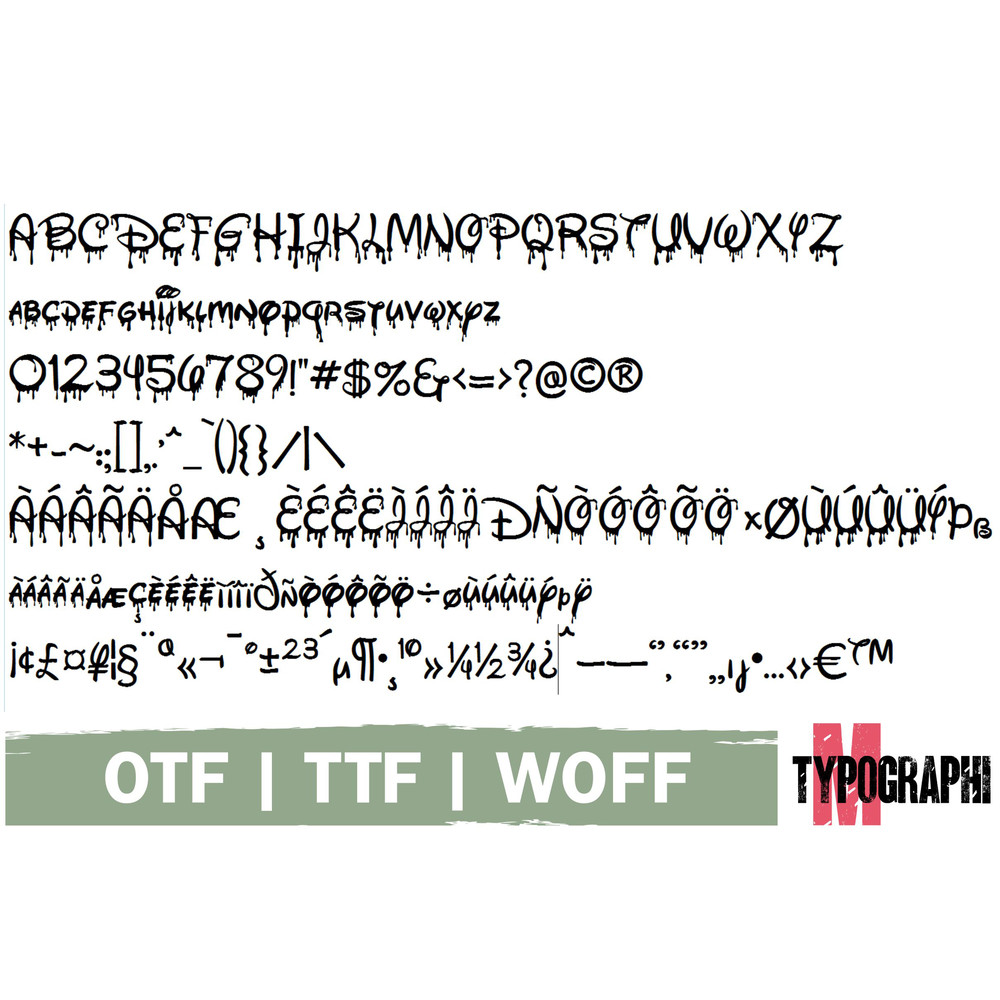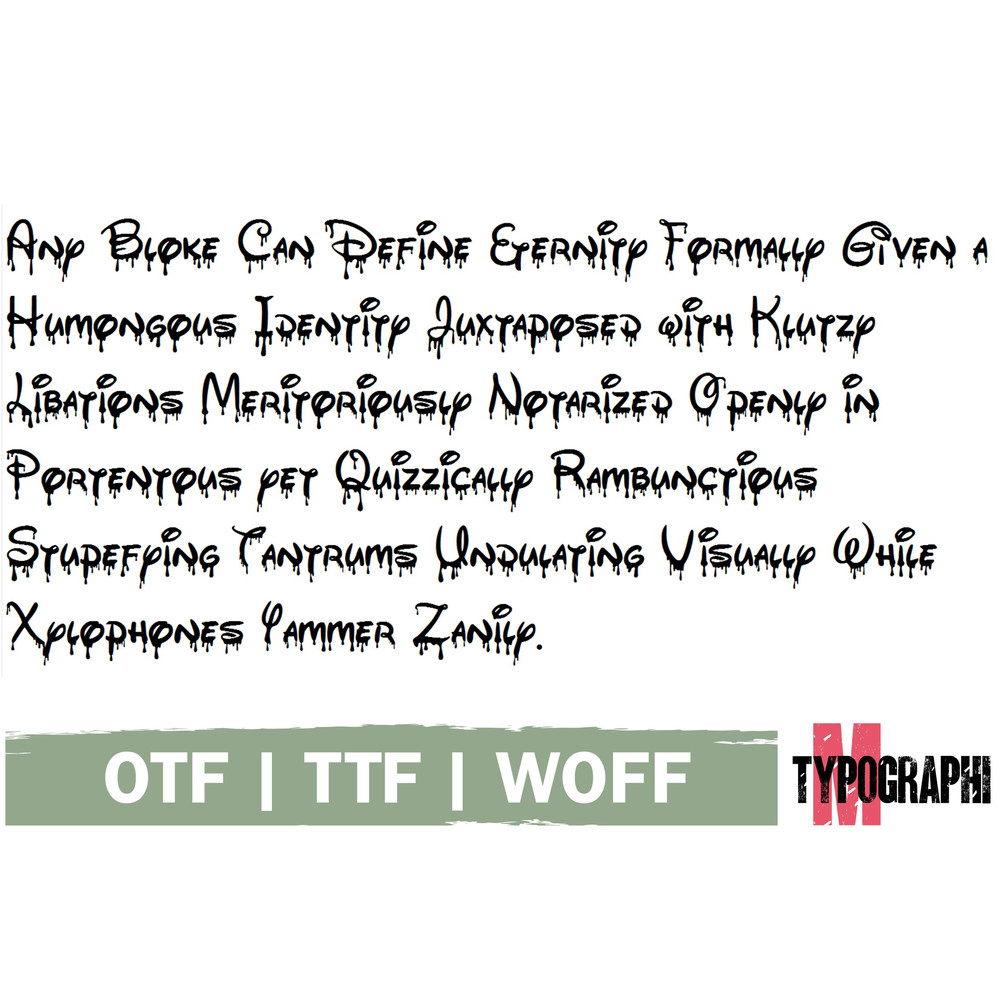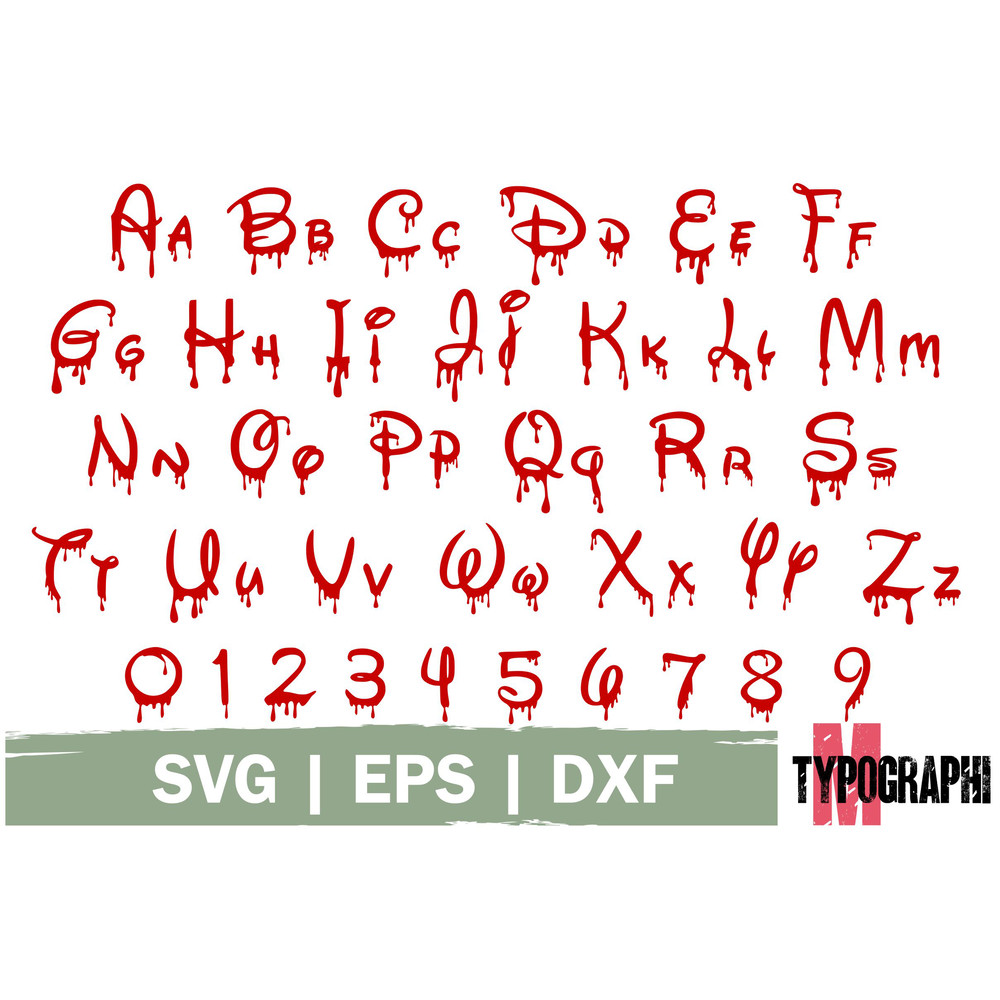
Halloween Disney font OTF | Disney Dripping font SVG Cut file, Halloween font SVG, Blood alphabet letters & numbers SVG
Halloween font OTF | Halloween font SVG, Dripping font SVG Cut file, Blood alphabet letters and numbers SVG, Halloween Cricut Font, Silhouette font